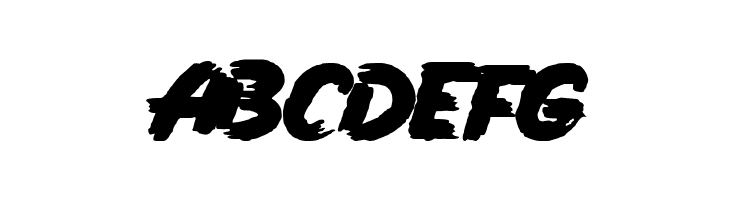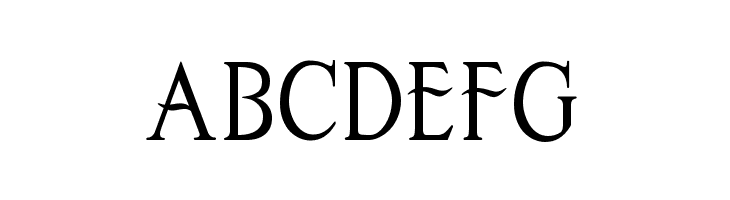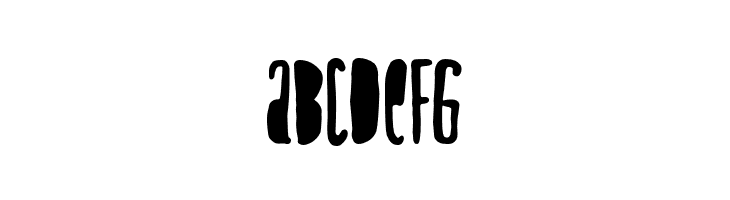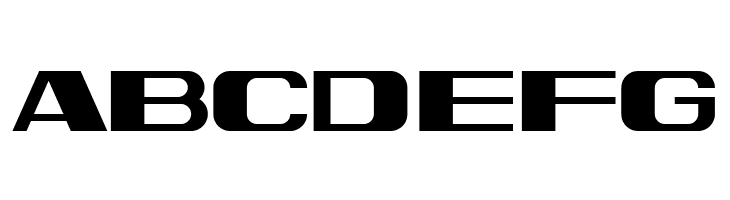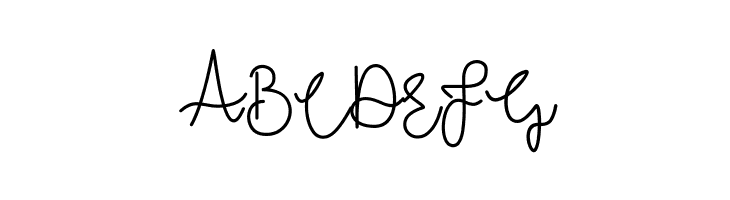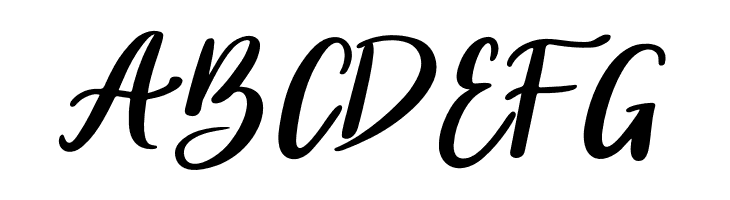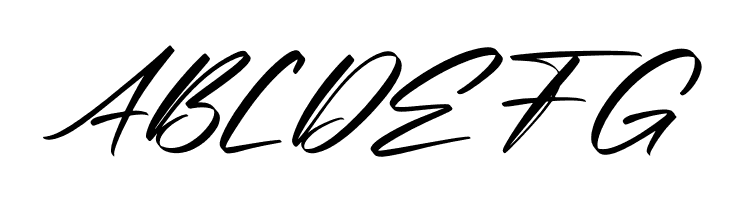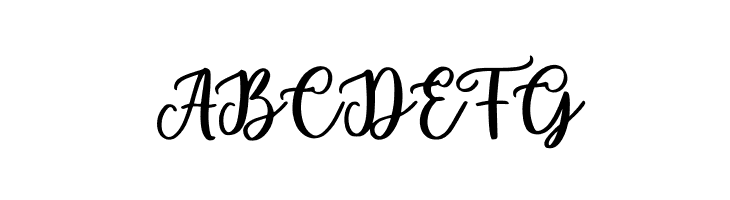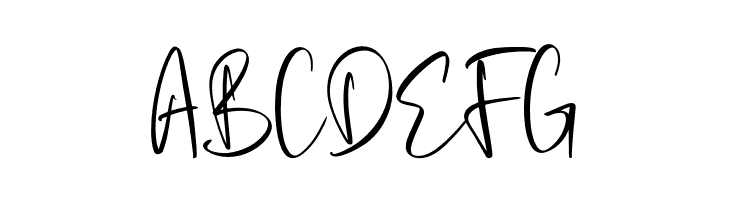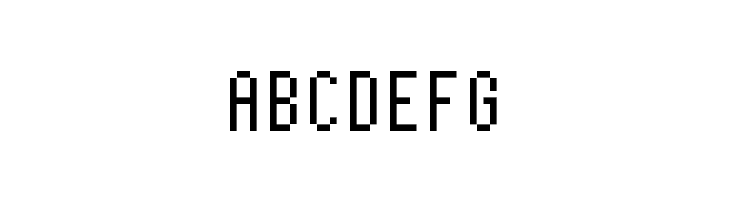
A bold, textured font with a playful, hand-drawn style.
An elegant script font with flowing, ornate cursive letters and intricate swashes.
A classic serif font with high contrast and elegant, elongated lines.
A playful and whimsical font with rounded edges and open counters.
A tall, narrow font with a modern and elegant style.
A bold, edgy font with sharp, angular lines and a hand-drawn quality.
A bold, distressed font with a vintage, textured appearance.
A bold, expressive script font with a hand-painted, artistic style.
A sleek, modern font with thin, elegant lines and a minimalist aesthetic.
A modern, geometric font with a clean and minimalist design.
A sleek, modern font with a minimalist and elegant design.
A bold, graffiti-inspired font with thick, uneven strokes and a hand-drawn feel.
A bold serif font with a classic yet modern style.
A modern, clean sans-serif font with geometric shapes and uniform strokes.
A bold, brush-stroke style font with a dynamic and energetic appearance.
A modern, clean sans-serif font with consistent stroke width and balanced spacing.
A clean, modern sans-serif font with excellent readability and uniform stroke widths.
A classic serif font with elegant curves and distinctive character designs.
A bold, playful, hand-drawn font with tall, narrow characters.
A bold, modern font with a strong geometric and horizontal emphasis.
An elegant script font with flowing, cursive letterforms and high contrast strokes.
A whimsical, elegant cursive font with playful loops and smooth flow.
A bold, expressive script font with flowing, connected letterforms.
A playful, handwritten font with a whimsical and casual style.
An elegant, flowing script font with smooth, cursive strokes and graceful curves.
A flowing, cursive script font with elegant, interconnected letters.
A pixelated, monospaced font with a retro digital style.
A decorative cursive font with elegant loops and swirls.
A dynamic and expressive handwritten font with fluid cursive strokes.
A pixelated, retro-style font with a digital, blocky appearance.
A pixelated, retro-style font with a blocky, digital appearance.
A cursive, handwritten-style font with elegant, flowing characters.